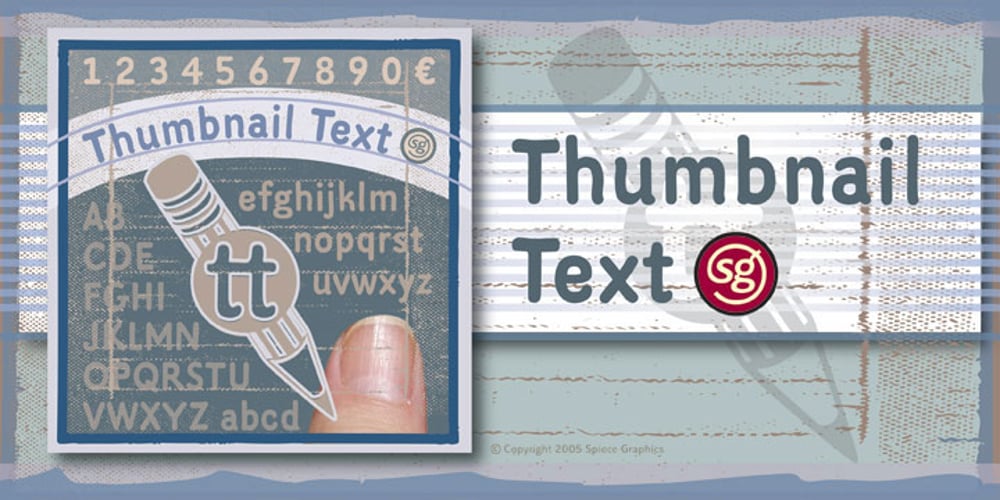
Thumbnail Text SG Font Family was designed by Jim Spiece and published by Spiece Graphics. Thumbnail Text SG contains 1 styles and family package options. With its slightly rough edges, Thumbnail Text works well where lettering is required. Letterforms wiggle a bit here and there but are generally quite uniform. Characters are a bit imprecise – but not showy or bouncy. They appear more adult-looking than childish and are very legible. Put Thumbnail Text to work as drafting notation or on blueprint projects that need to be easily read. It¹s also useful when concept or sketch stage lettering needs to look serious but not highly stylized. You might experiment with it inside cartoon thought balloons or in callouts. This design is based on an old showcard style from the 1940s. It’s been dusted off and reissued for modern use. A lowercase has been added for greater functionality. Thumbnail Text Regular is now available in the OpenType Std format. Some additional characters have been added to this OpenType version as stylistic alternates. This advanced feature works in current versions of Adobe Creative Suite InDesign, Creative Suite Illustrator, and Quark XPress. Check for OpenType advanced feature support in other applications as it gradually becomes available with upgrades.